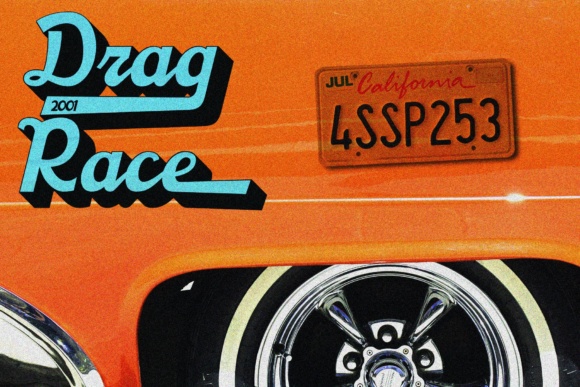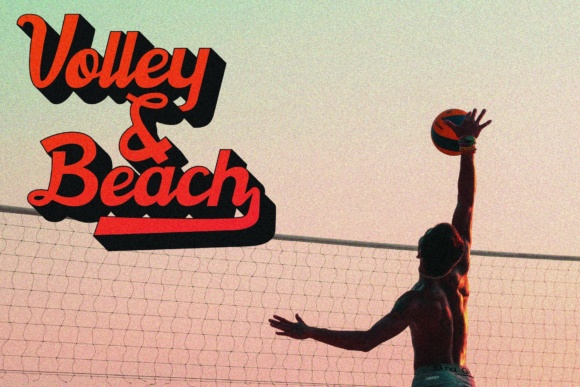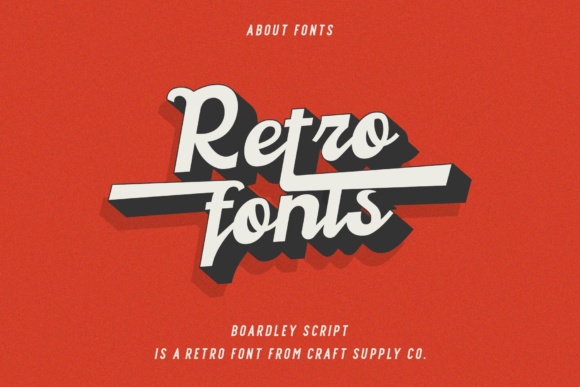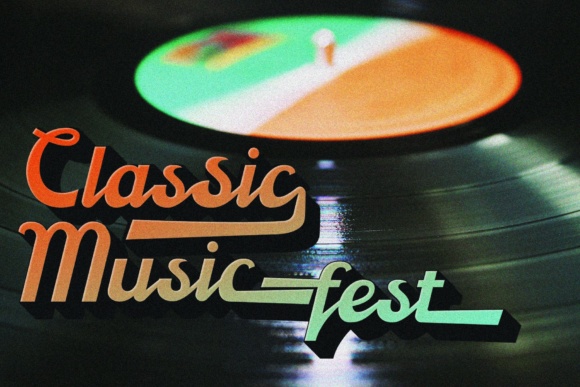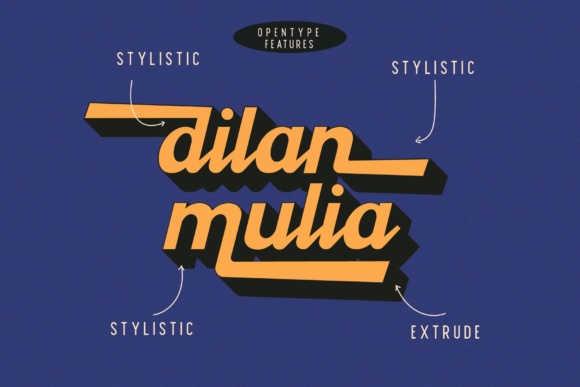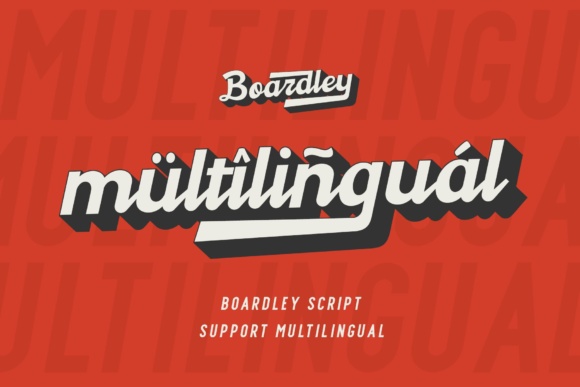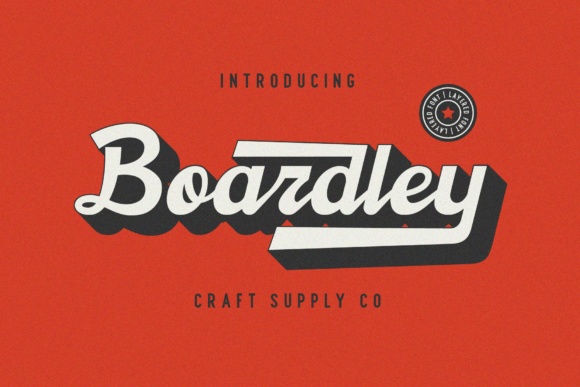
Introducing Boardley Script Font: Elevate Your Designs with Mid-Century Flair
In the realm of typography, few fonts manage to capture the essence of mid-century American and European bold script lettering as effortlessly as the Boardley Script Font. This layered script style font is a masterpiece born out of meticulous exploration and craftsmanship, making it a versatile tool for designers and crafters alike. Whether you’re working on a logo, a greeting card, a quote, a poster, or any other design project, Boardley Script promises to add a touch of contemporary elegance and vintage charm.
The Making of Boardley Script
Boardley Script is not just another font; it’s a result of rigorous design exploration. Crafted from scratch, this font features two distinct layers, a characteristic that sets it apart from more traditional typefaces. The designer poured over mid-century American and European bold script lettering used in advertising, seeking inspiration in the boldness and elegance of that era’s typography. The result is a very attractive, contemporary font that pays homage to the past while firmly belonging to the present.
One of the standout features of Boardley Script is its incredible versatility. This font is suitable for a wide range of design projects, including:
• Logo Design: Create memorable and stylish logos that stand out.
• Greeting Cards: Add a personal touch to your cards with elegant script.
• Quotes and Posters: Make your messages and posters more impactful with bold, eye-catching typography.
• Branding: Elevate your brand’s visual identity with a sophisticated script font.
• Name Cards and Stationery: Add a touch of class to personal and professional correspondence.
• Design Titles and Blog Headers: Capture your audience’s attention with stylish headings.
• Art Quotes and Typography Art: Perfect for artists and designers looking to add a textual element to their work.
• Modern Envelope Lettering: Stand out with beautiful, hand-crafted lettering on your envelopes.
• Book Design: Enhance your book titles and covers with a distinctive font.
Beyond Conventional Uses
Boardley Script’s adaptability doesn’t stop there. It’s also ideal for:
• Hand-Drawn Designs: Add a professional touch to your hand-drawn projects.
• Watercolor Designs: Combine beautifully with watercolor elements for a stunning effect.
• Craft Designs: Perfect for crafters looking to add a typographic element to their projects.
• DIY Projects: Elevate your DIY designs with a stylish and contemporary font.
• Book Titles and Wedding Invites: Create beautiful and memorable titles and invitations.
• Templates and Pop Vintage Designs: Great for designers looking to create vintage-inspired works.
Why Choose Boardley Script?
Choosing Boardley Script for your design projects comes with numerous benefits:
• Unique Aesthetic: Offers a distinctive mid-century flair with a modern twist.
• High Versatility: Suitable for a wide range of projects, from professional branding to personal DIY crafts.
• Attention to Detail: Crafted with meticulous attention to detail, ensuring high-quality results.
• Contemporary yet Vintage: Balances modern design principles with vintage charm.
Boardley Script Font is more than just a typeface; it’s a design companion that can elevate your projects to new heights. Its unique blend of mid-century inspiration and modern design makes it a valuable asset for designers and crafters looking to add a touch of elegance and vintage flair to their work. Whether you’re creating professional branding materials or personal DIY projects, Boardley Script promises to deliver results that are both visually striking and deeply engaging.